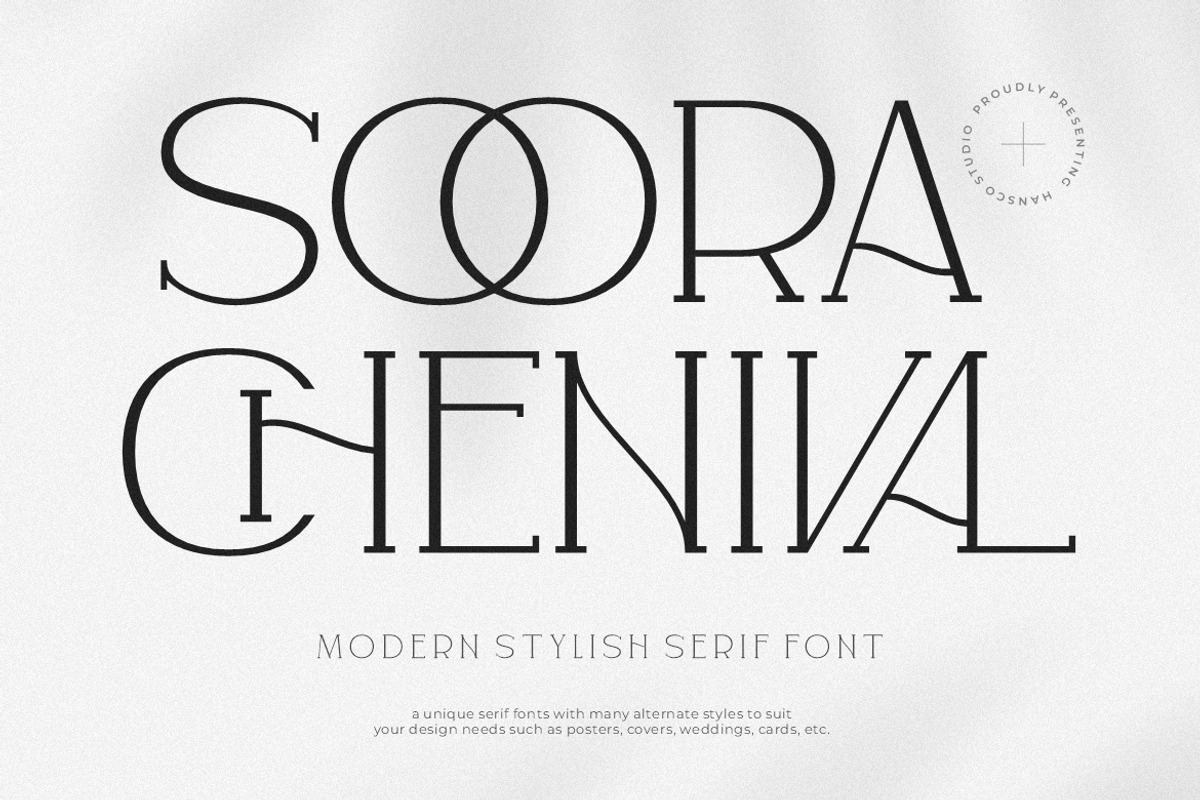
Soora Chenival - Aesthetic Font Free Download
Please note, to use this font for commercial purposes, you must purchase the full version. Soora Chenival is an elegant and aesthetic font designed to bring a touch of sophistication and beauty to your designs. With its graceful letterforms and modern style, this font is perfect for logos, branding, invitations, social media posts, and other creative projects. Whether you're designing for a luxury brand, a stylish event, or a personal project, Soora Chenival adds a refined, artistic touch to your work. Test it out and enjoy free download access for personal use. Experience the beauty and elegance of Soora Chenival - Aesthetic Font Free Download before purchasing the commercial license. Add an artistic, modern flair to your designs with Soora Chenival.